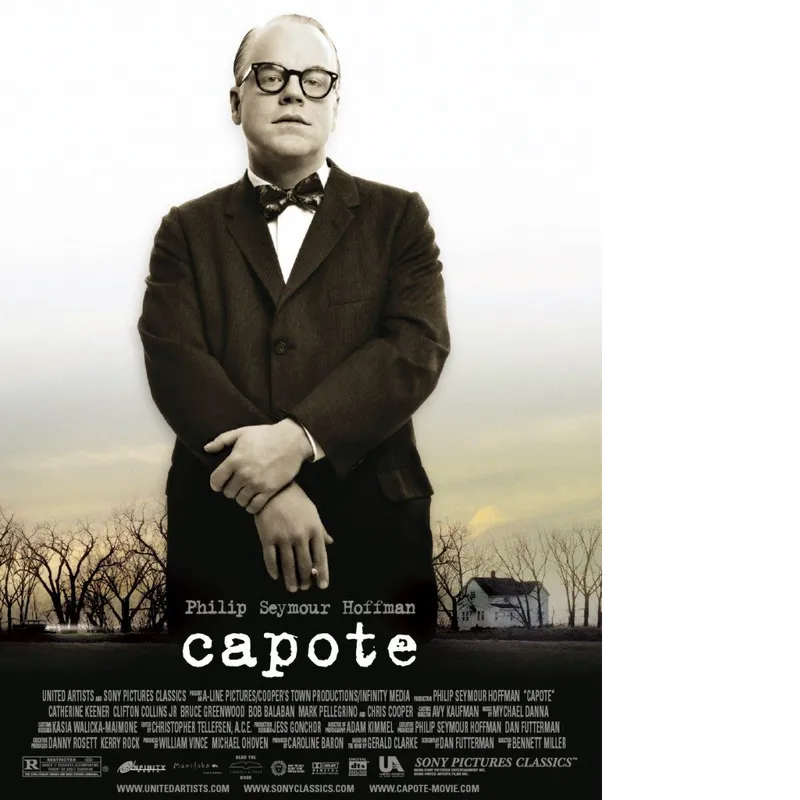
FF Trixie
Trixie was conceived when we figured out a way to digitise rough, unsmooth shapes and put them in fonts. This happened during the height of the bezier regime: letters were getting smoother all the time, there was a need to roughen the world of typography a bit. Trixie was taken from a typed sample from a typewriter owned by a friend in Berlin, Beatrix Gnther, or Trixie for short.
The sample was digitised, and two weights were derived from the original scans. Then a lot of tweaking and editing: in those days printers would choke on fonts larger than 40K. The rough outlines consist of many points and it was necessary to take out a fair number of them, but leaving the impression of roughness in tact.
The FontFont Trixie family consists of Trixie-Plain, a quite heavy and detailed typeface, and then FontFont Trixie-Light, as if the ink in the ribbon had gone old. To please people with printers with small memories, Trixie Text was added to the family. It is basically the same design as Trixie-Plain, but with less points (so also less detail) on the outlines. Trixie-Cameo is a reversed version of Trixie-Text, providing interesting typographical possibilities.
Trixie was published in 1991. Since then, many more dirty typewriter typefaces have been produced. Trixie was the first commercial release, and that's that.